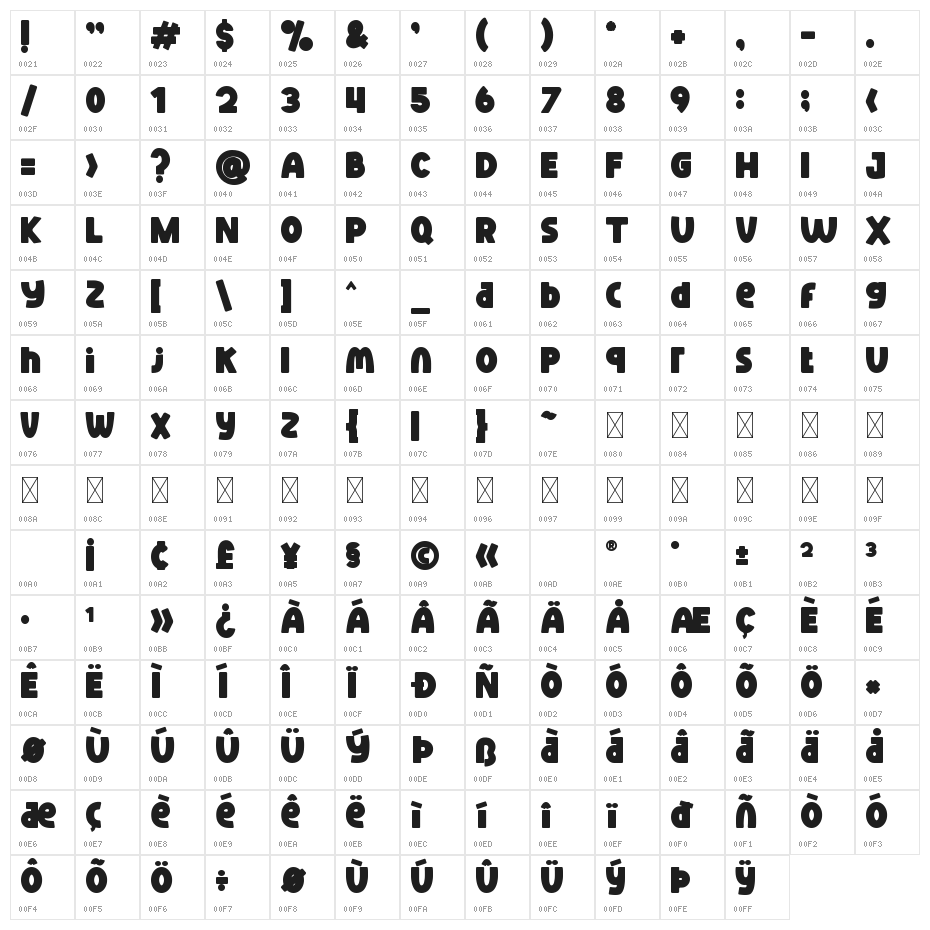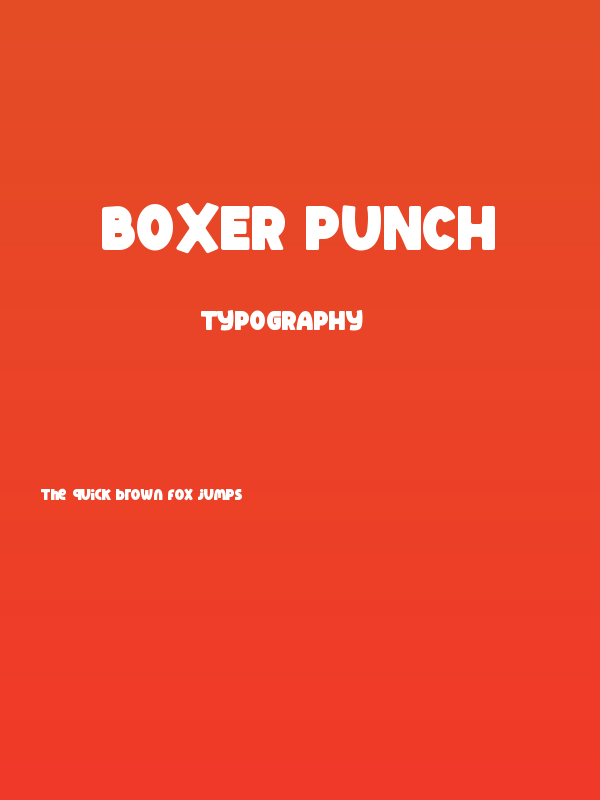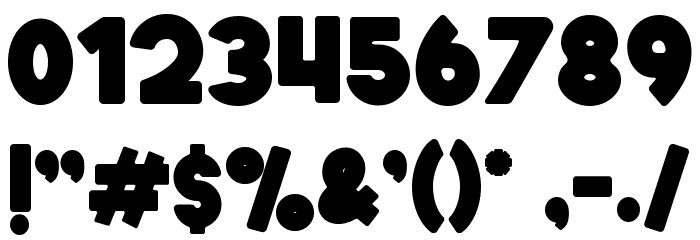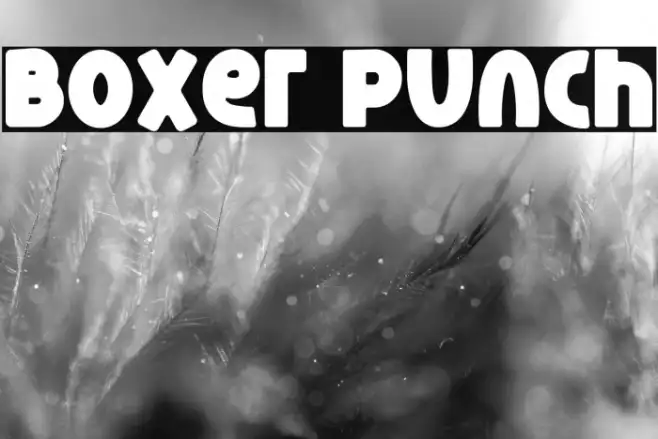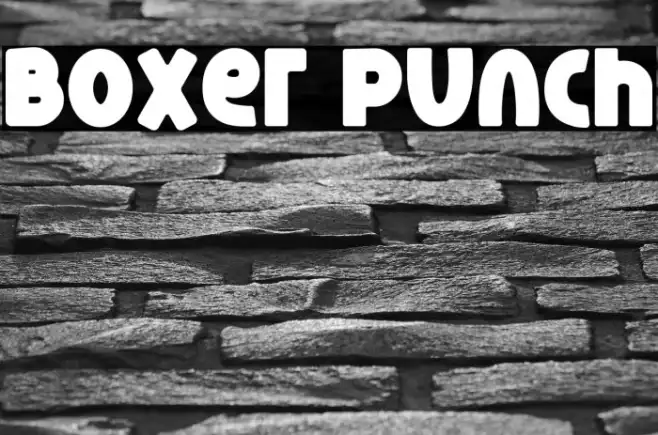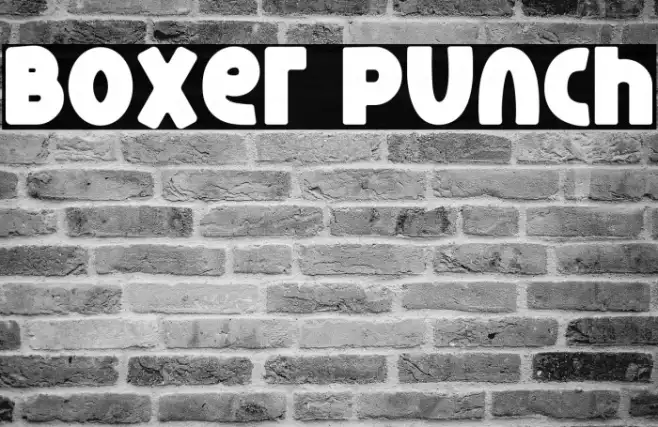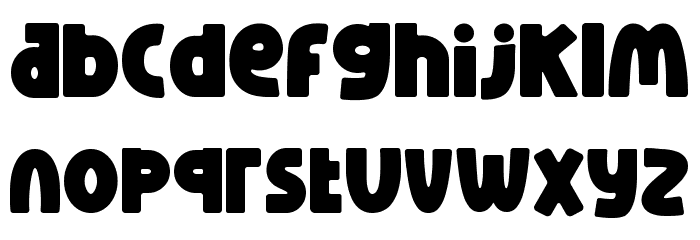
Boxer Punch Font
Boxer Punch Description
This font features bold, rounded characters with a playful and robust appearance. The letters are thick and have a consistent weight throughout, giving them a strong presence. The rounded edges and smooth curves create a friendly and approachable feel, making it suitable for designs that aim to be both impactful and inviting. The numbers and special characters maintain the same bold and rounded style, ensuring uniformity across all elements. This font is ideal for projects that require a fun and energetic vibe.
| Overall Style | Playful, Energetic |
| Proposed Projects | Ideal for children's books, playful branding, posters, and event invitations. |